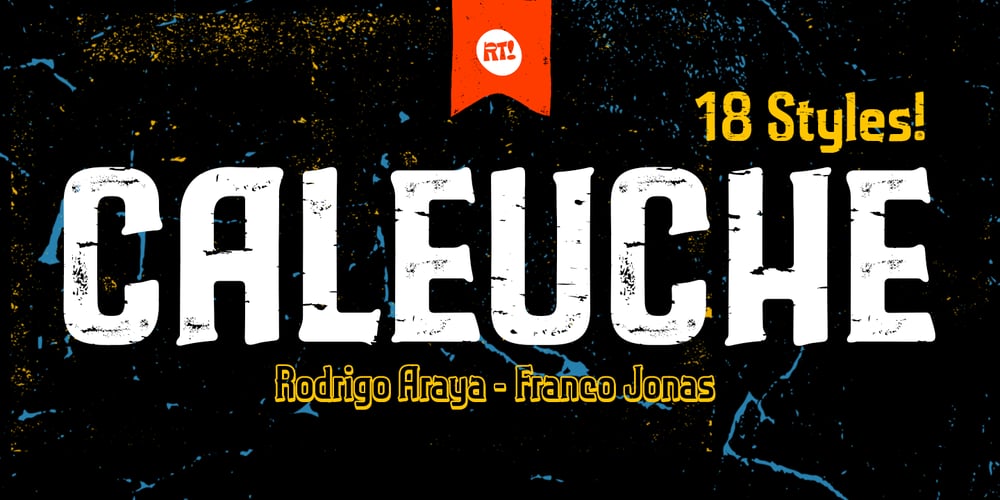
Caleuche Font Family was designed by Rodrigo Araya Salas, Franco Jonas Hernández and published by RodrigoTypo. Caleuche contains 18 styles and family package options. Caleuche is a typeface family of 18 styles, from its standard version Light to UltraBold such as Rough and Inline, it is a display typeface that plays with the style of action, mythology, terror and suspense.